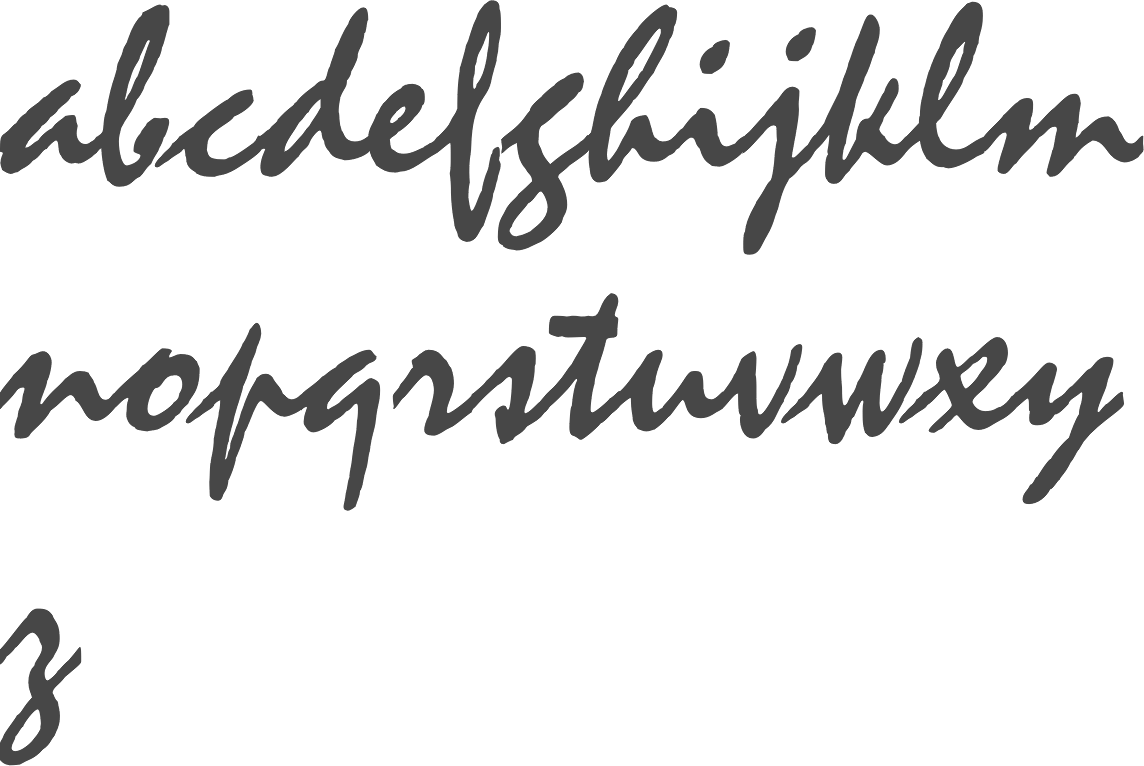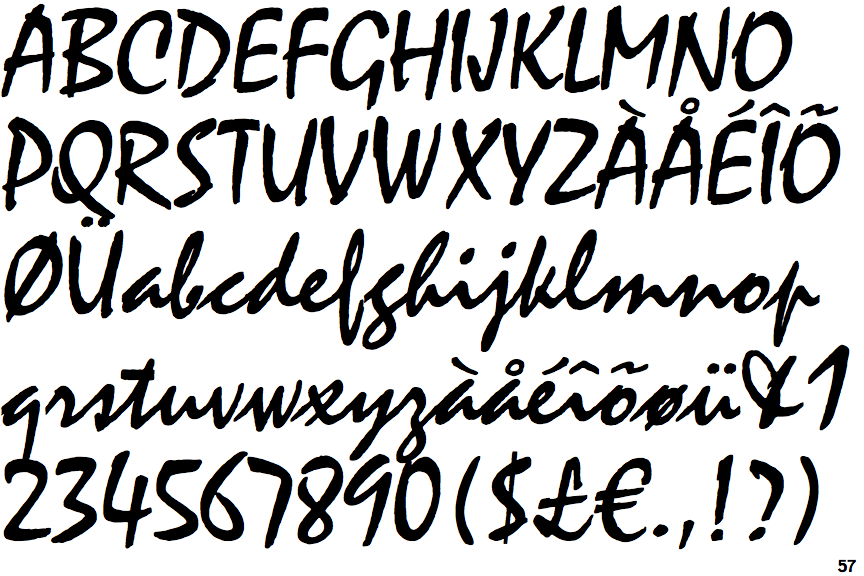
Mistral Font Adobe
Mistral Font Adobe. The amsterdam type foundry released a version in 1955. Can i download from somewhere?
Mistral Is A Brush Script Typeface Designed By Roger Excoffon And Released Through French Foundry Fonderie Olive In 1953.
This typeface can easily provide an elegant and formal texture vibe to your designs and projects. Paratype also creates custom fonts and provides font mastering services. Mistral was a tour de force in metal type making, because this apparently casual script joined flawlessly (although the ragged outline helps to disguise the joins).
The Stroke Has An Informal Graphic Quality Similar To Brush And Ink.
Can i download from somewhere? Mistral is a casual script typeface designed by roger excoffon for the fonderie olive type foundry, and released in 1953. Similar free fonts for mistral.
Mistral Font Was Designed On The Hand Writing Of Its Author.